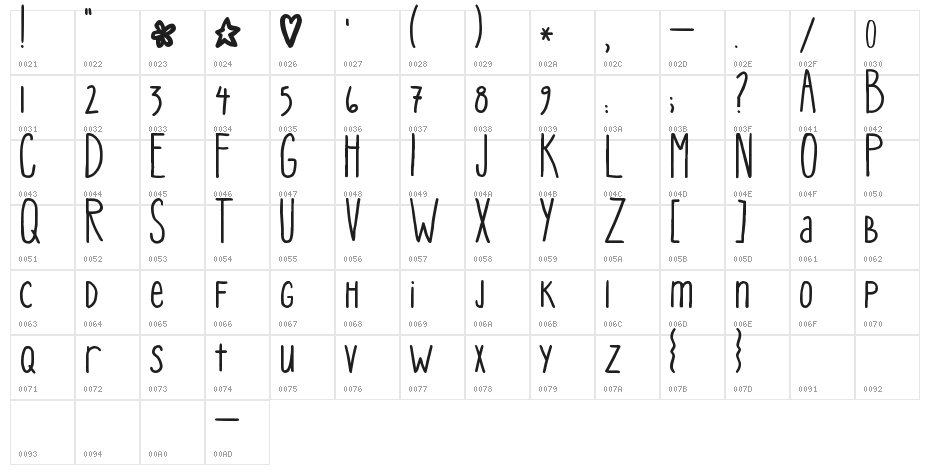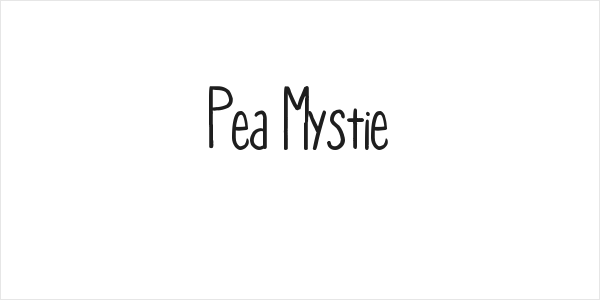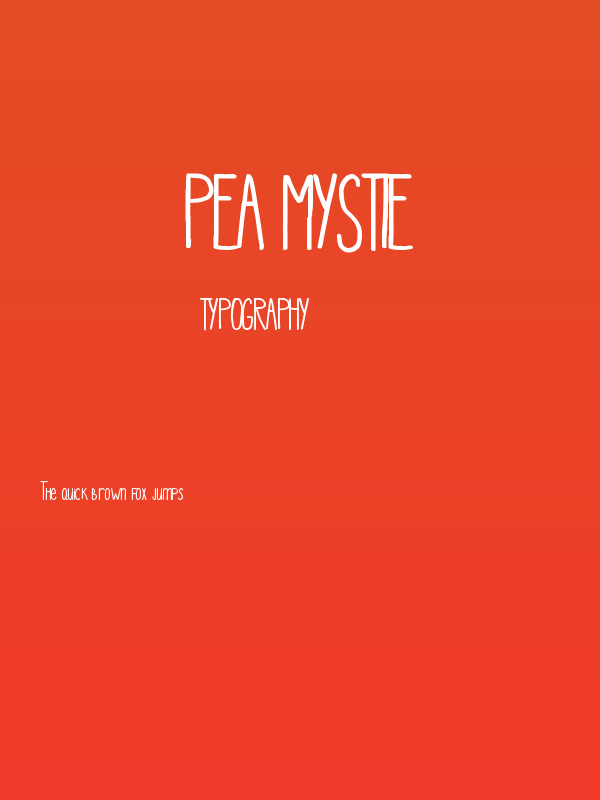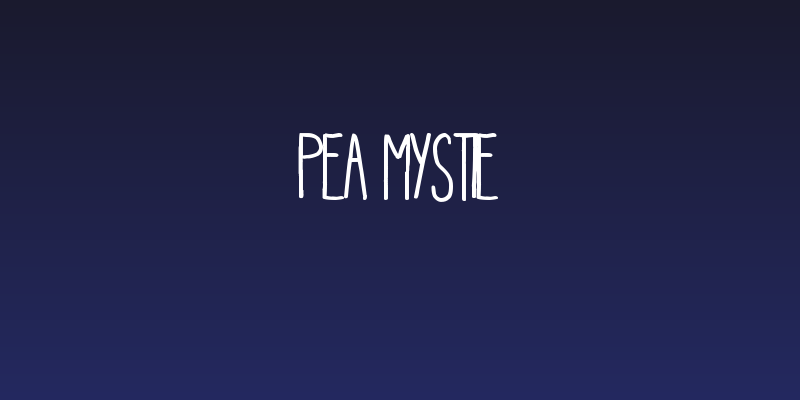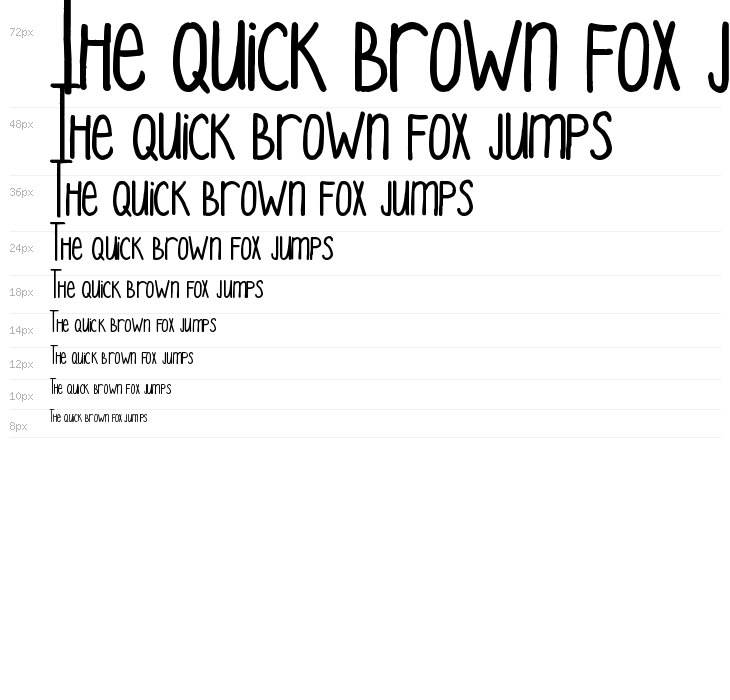
Pea Mystie Font
Pea Mystie Description
This playful and whimsical font features a hand-drawn aesthetic with irregular, slightly wavy lines that give it a charming, informal feel. The uppercase letters are tall and narrow, while the lowercase letters are more rounded and compact, creating a delightful contrast. The numbers maintain the same playful style, with unique curves and angles. Special characters, such as stars and hearts, add to the font's decorative appeal. The overall design is casual and friendly, making it perfect for projects that require a personal touch.
| Use Case | Logos, Headlines, Informal Invitations |
| Proposed Projects | Ideal for greeting cards, children's books, playful branding, and DIY crafts. |